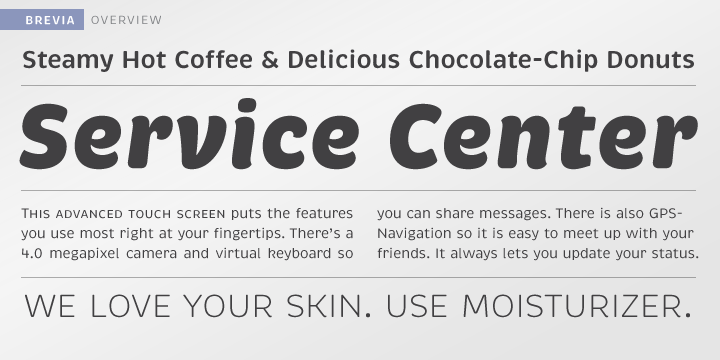
Brevia Font Free Download is a soft sans-serif typeface perfect for designers seeking a friendly and modern aesthetic.
This font is ideal for applications like cosmetics branding, food packaging, advertising, service industry materials, and editorial layouts.
What makes Brevia Font so exciting is its brushed, casual feel combined with a straight architecture, offering a perfect blend of approachability and readability for both small and large text.
The Brevia Font family includes styles such as Light, Light Italic, Regular, Regular Italic, Medium, Medium Italic, SemiBold, SemiBold Italic, Bold, Bold Italic, Black, Black Italic, ExtraBlack, and ExtraBlack Italic, providing extensive versatility.
With Brevia Font Free Download, you’re accessing a typeface designed by Hannes von Döhren and published by HVD Fonts, known for its modern geometric structure and hint of brushed texture. Featuring over 681 glyphs, including small caps, fractions, old-style and tabular numbers, and arrows, Brevia Font supports Central, Eastern, and Western European languages, making it ideal for multilingual projects. Its large x-height ensures excellent legibility in small sizes, while its heavier, slightly curved weights shine in bold headlines and logos, perfect for cosmetics or advertising.
Brevia Font is celebrated for its versatility and professional quality, making it a top choice for designers aiming to convey a pleasant, contemporary vibe. Its clean lines and rounded edges make it suitable for both print and digital media, from web design to packaging. By incorporating Brevia Font Free Download into your work, you elevate your designs with a typeface that’s both stylish and functional. Download it today to test its potential and see how it transforms your creative projects.
With Brevia Font Free Download, you unlock a typeface that’s perfect for creating approachable yet professional designs. Its extensive style range and brushed aesthetic make it ideal for branding, advertising, and more. Don’t miss the chance to experiment with this dynamic font and bring a fresh, modern touch to your work.